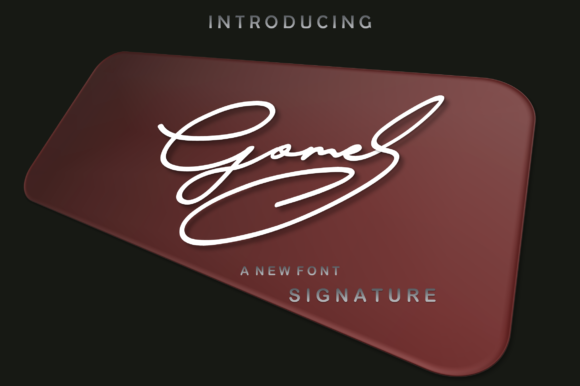
Introducing Gomes Font: Where Elegance Meets Versatility in the World of Handwritten Scripts
In a world where digital communication reigns supreme, your email signature holds the power to make a lasting impression. Picture this: an exquisitely crafted handwritten font that exudes warmth, charm, and a touch of whimsy. Meet Gomes Font, the ultimate choice for those seeking a distinctive and captivating online presence.
Step into a realm of creative possibilities with Gomes, a script font that dances across your screen with effortless grace. Its meticulously designed swashes and ligatures transform ordinary text into breathtaking works of art. Whether you're a seasoned designer seeking inspiration or a creative enthusiast seeking self-expression, Gomes is your gateway to visual storytelling.
Envision your Instagram posts, branding materials, and personal projects adorned with the enchanting strokes of Gomes. This versatile font seamlessly blends classic elegance with modern flair, making it the perfect companion for a wide array of creative endeavors. From heartfelt love letters to eye-catching social media graphics, Gomes adds a touch of magic to every word you write.
Unleash your creativity and watch as Gomes transforms your digital interactions into captivating experiences. Its playful and approachable nature invites readers to engage with your content, fostering a sense of connection and intrigue. Whether you're a blogger, an artist, or simply someone with a passion for beautiful fonts, Gomes is your secret weapon to making a lasting impact.